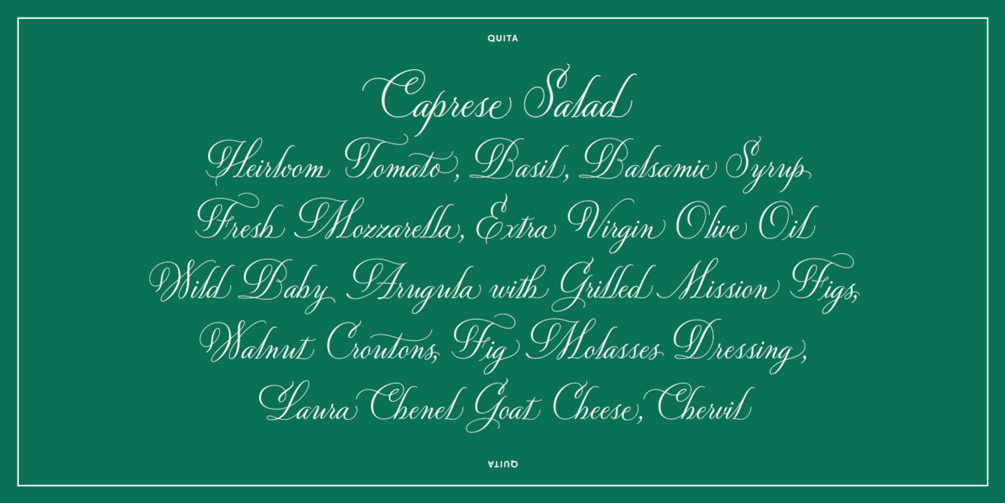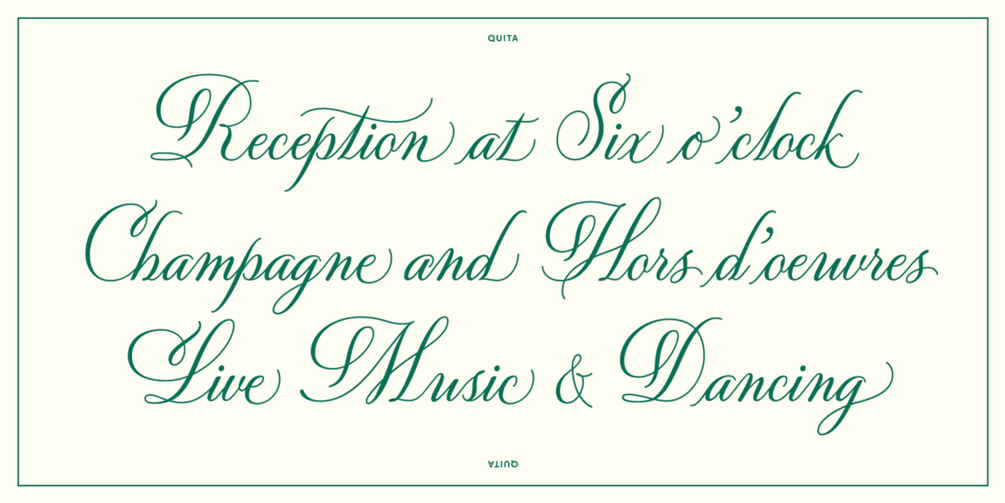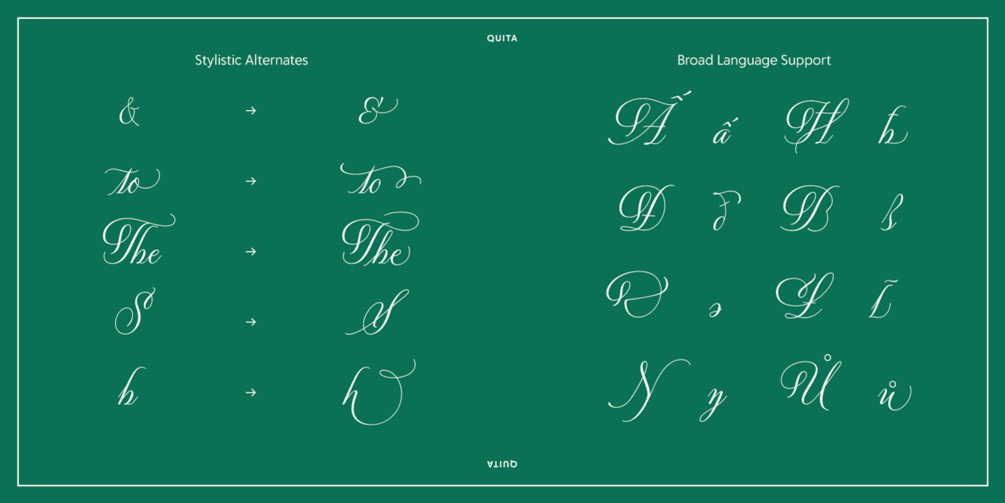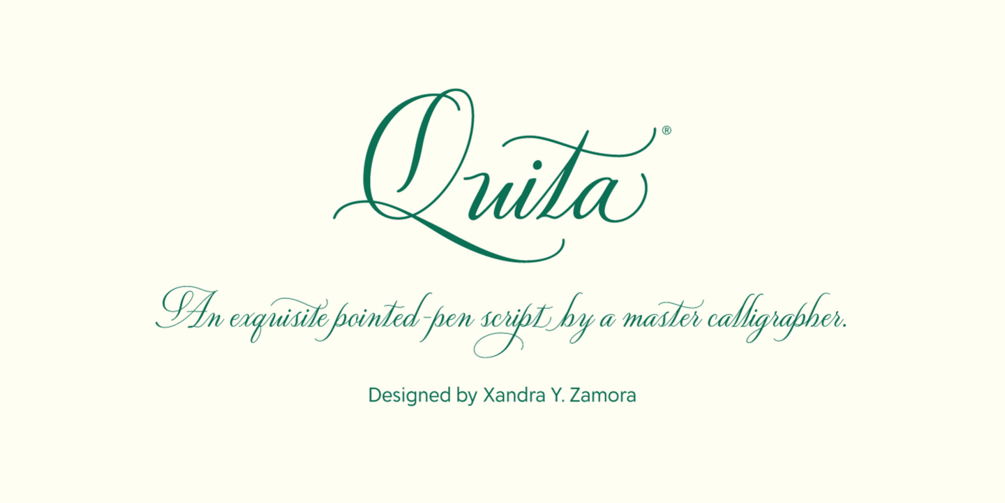
Penned by master calligrapher Xandra Y. Zamora, Quita is a luxurious script that lends an artistic elegance and a sense of refinement to any setting. Xandra’s expertise with the pointed pen is apparent in the confident curves and magnificent flourishes seen throughout the typeface.
Delve Fonts accurately captured and faithfully reproduced the vivacious letterforms as a connected script. Alternate letterforms were included to invisibly achieve harmonious spacing among any combination of letters. The best part is: they are automatically applied as you type, giving you great typesetting right out of the box. Further customize your message by applying some of the many stylistic alternates, discretionary ligatures, and swash variants available in Quita’s character set.
Quita is right at home on a menu, a wedding invitation, food packaging, or branding for luxury goods. And with a character set of over a thousand glyphs, Quita's language support is extensive. It accommodates 314 languages, including Czech, Danish, Turkish, Polish, and Vietnamese. Quita is certain to be one of your new favorite design tools.